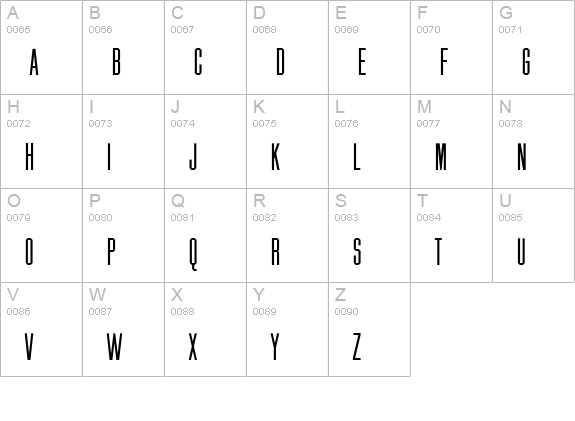
ChamferGothicRR Medium is a balanced, medium-weight variant in the ChamferGothicRR typeface family \xE2\x80\x94 well suited to sub-headlines, navigation, and balanced editorial work.
ChamferGothicRR Medium font is a sleek and modern typeface that exudes sophistication and style. Its clean lines and sharp corners create a bold and eye-catching look that is perfect for a wide range of design projects. This versatile font is ideal for headings, logos, posters, and more. The medium weight of ChamferGothicRR strikes the perfect balance between boldness and readability, making it a popular choice for designers looking to make a statement. And the best part? ChamferGothicRR Medium font is available for free download at FontsMarket.com. Simply visit the website to access this stunning font and elevate your designs with its unique aesthetic. Don't miss out on the opportunity to add ChamferGothicRR Medium to your font collection today!